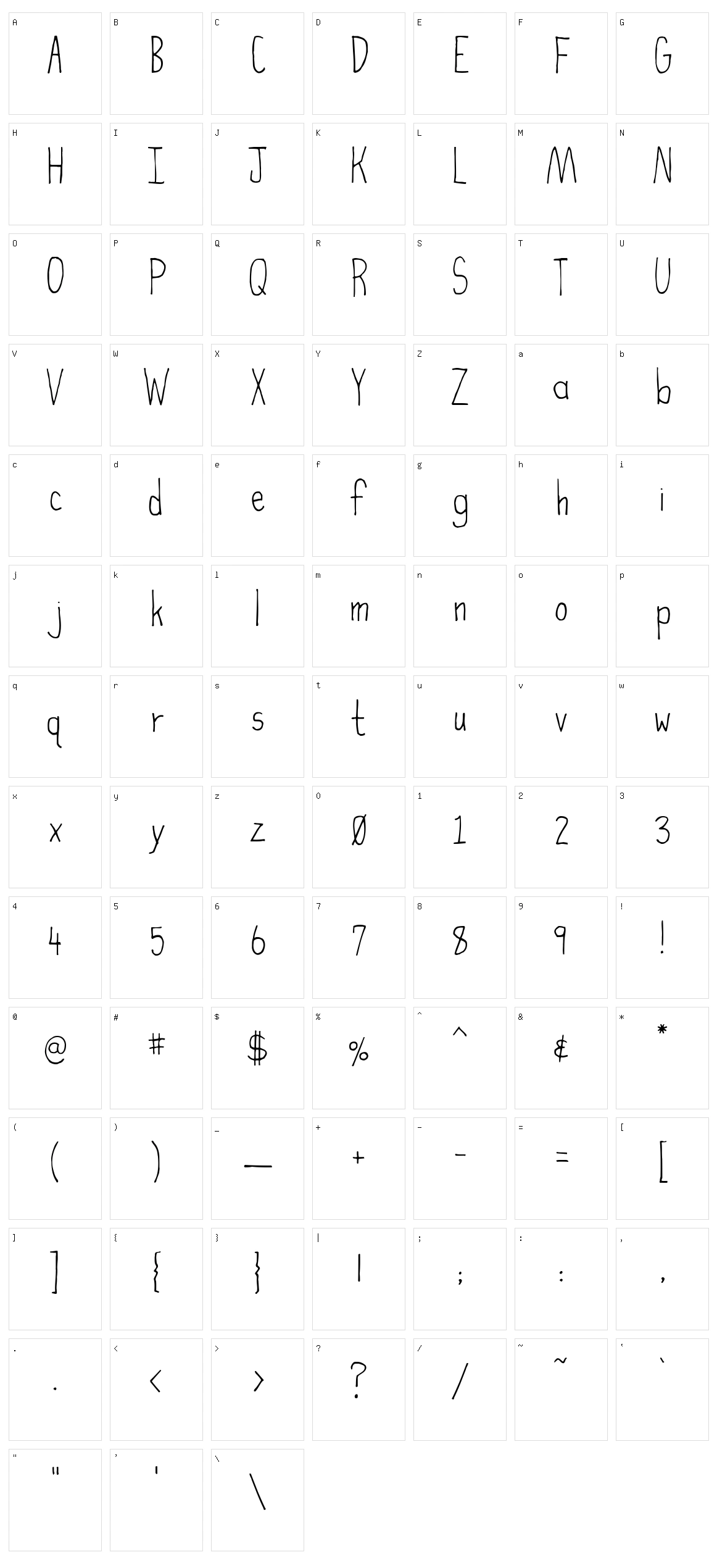
HIGH FIBER
Here's another example of a font created for my work. High Fiber was designed specifically for use in creating sample character sheets for my game projects (if you don't know what a character sheet is, that's okay - just imagine a group of grown men and women doing tax returns as a form of recreation; that's the general aesthetic).
I wanted a very regular, slightly narrow handwriting font that I could use to cram long skill-names and other paraphernalia into a short line without fiddling with compression or ugly kerning tricks, but my standard handwriting fonts (Yank and Newfie) don't quite fit that bill. I needed the handwriting of somebody desperately in need of a high-fiber diet. I needed a pocket-protector sort of font.
To create High Fiber, I selected a particularly crisp and clean piece of graph paper, opened a fresh pen, sat with my feet flat on the floor and my posture flawless, and began, slowly, to write. I imagine I looked pretty silly, but I did it up at the Metro on the drag, and it's pretty dark in there.
High Fiber is a full-keyboard set with a few selected extended characters (like smart quotes, dashes and the all-important é needed for words like Pokéthulhu and Cliché). Enjoy!